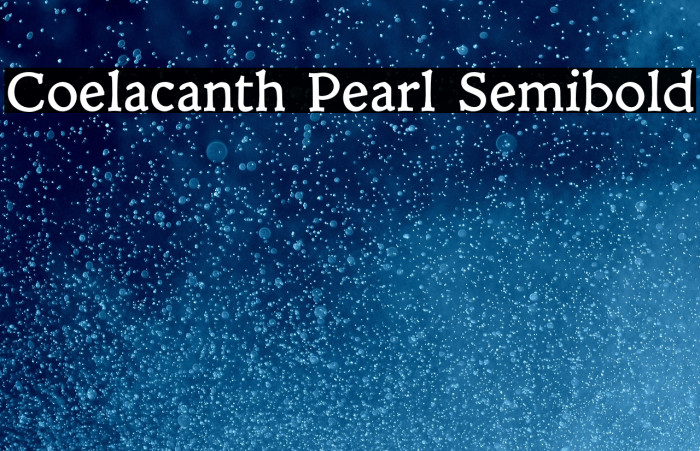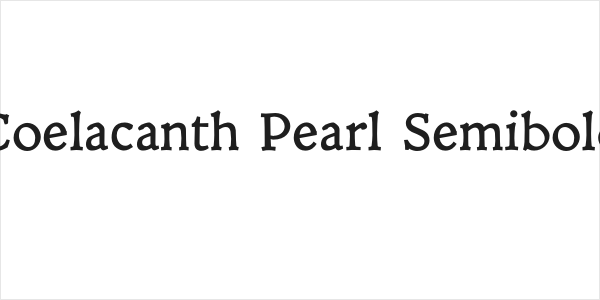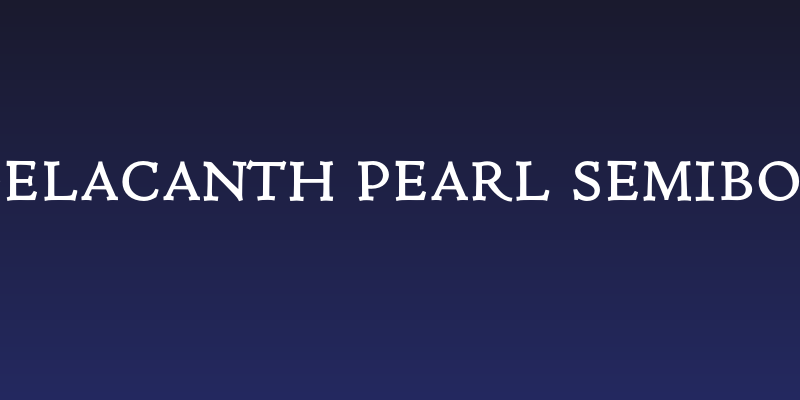
Coelacanth Pearl Semibold Font
Coelacanth Pearl Semibold Description
This font features a classic serif design with a semi-bold weight, providing a strong yet elegant appearance. The letterforms are well-defined with sharp serifs and a moderate contrast between thick and thin strokes, giving it a traditional and authoritative feel. The uppercase letters are slightly taller than the lowercase, maintaining a balanced proportion. The numerals are clear and distinct, making them easily readable. Special characters are designed with the same attention to detail, ensuring consistency across the typeface.
| Use Case | Headlines, Body text, Editorial design |
| Proposed Projects | This font is perfect for projects that require a touch of elegance and tradition, such as book covers, formal invitations, and editorial layouts. |